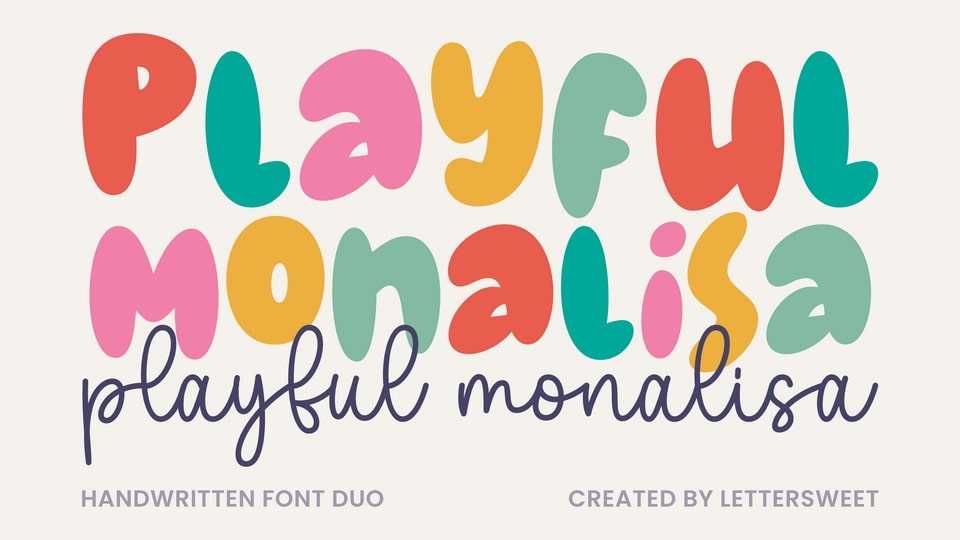
Download Playful Monalisa font, a fun and lively handwritten typeface duo designed to bring joy and creativity to your projects with its bold, bubbly letters.